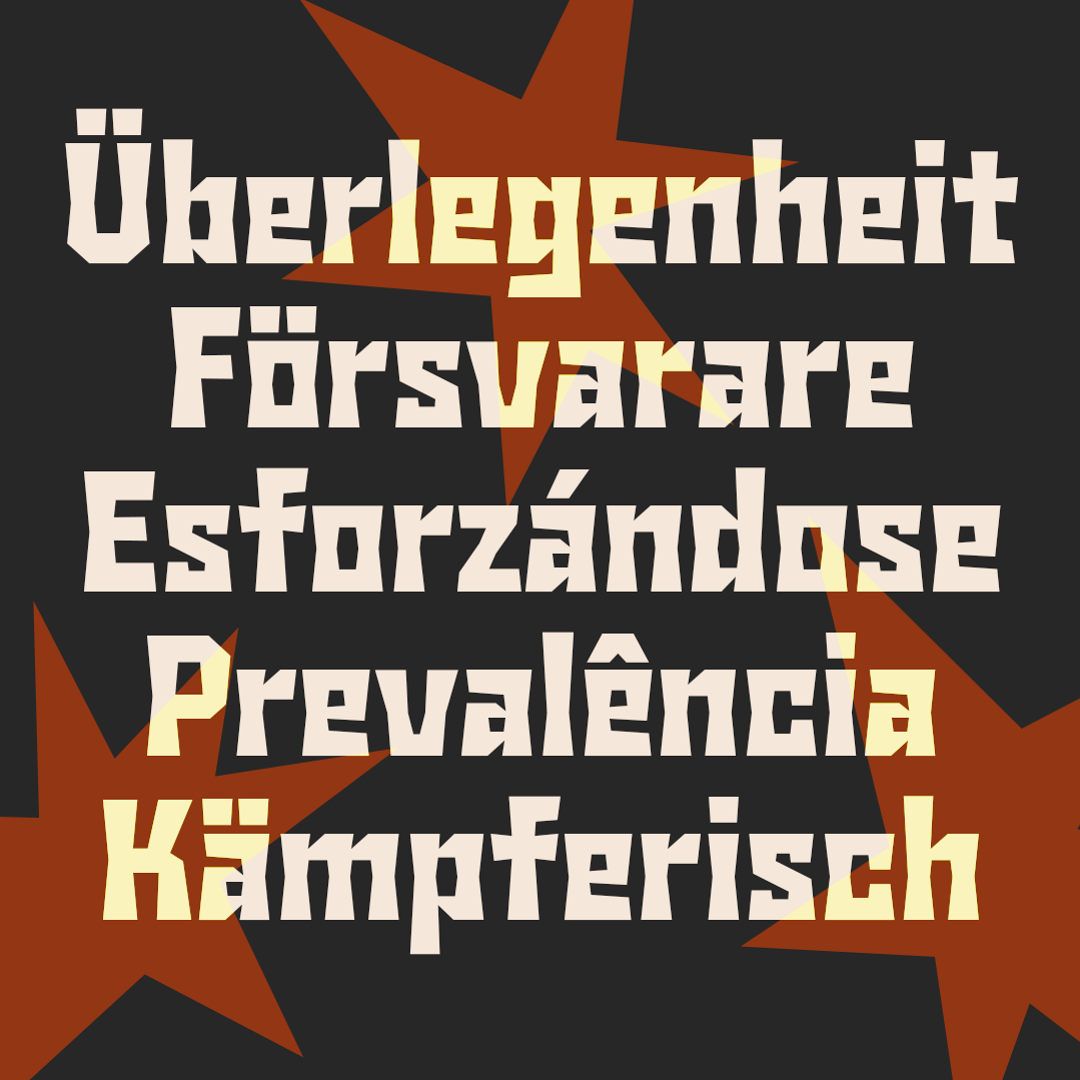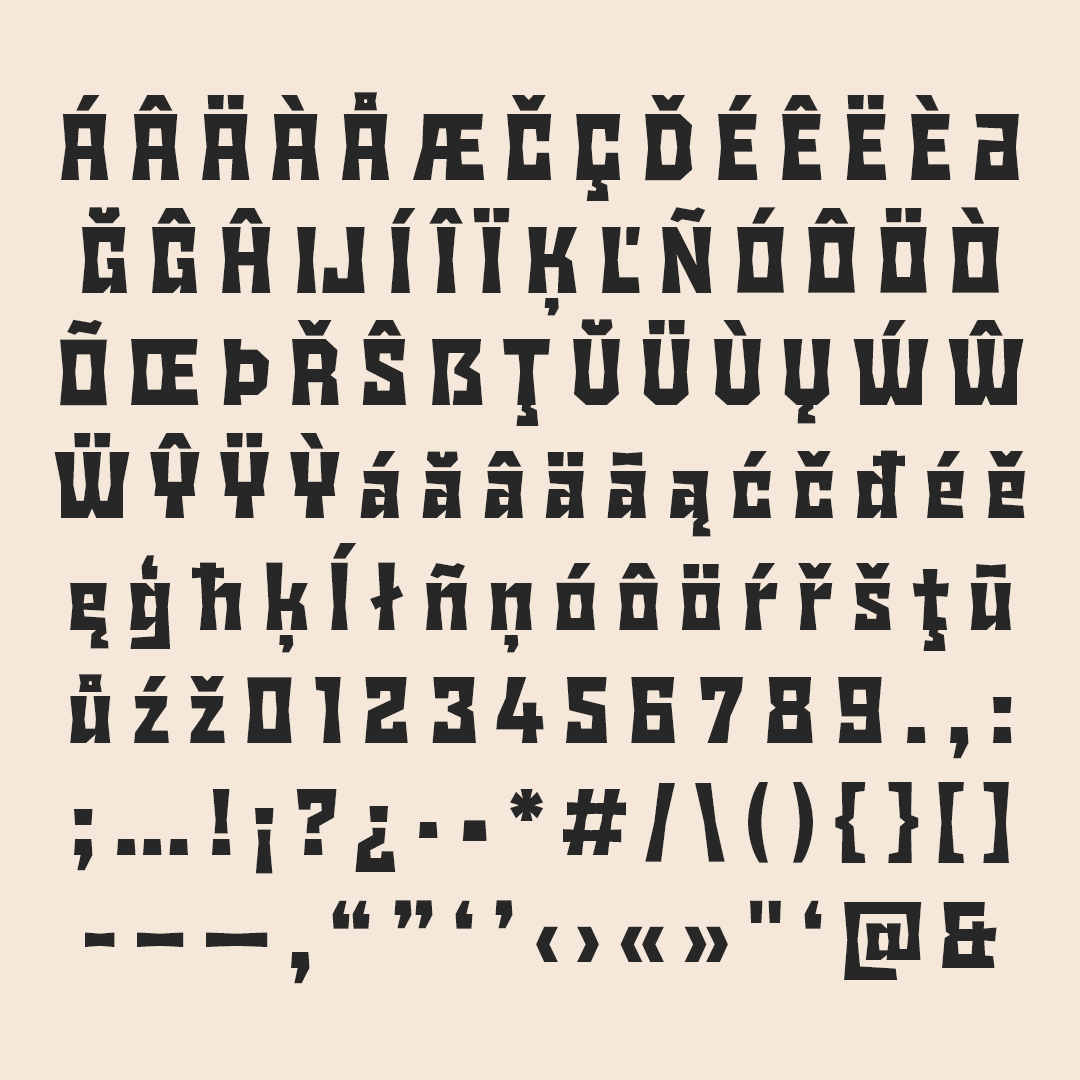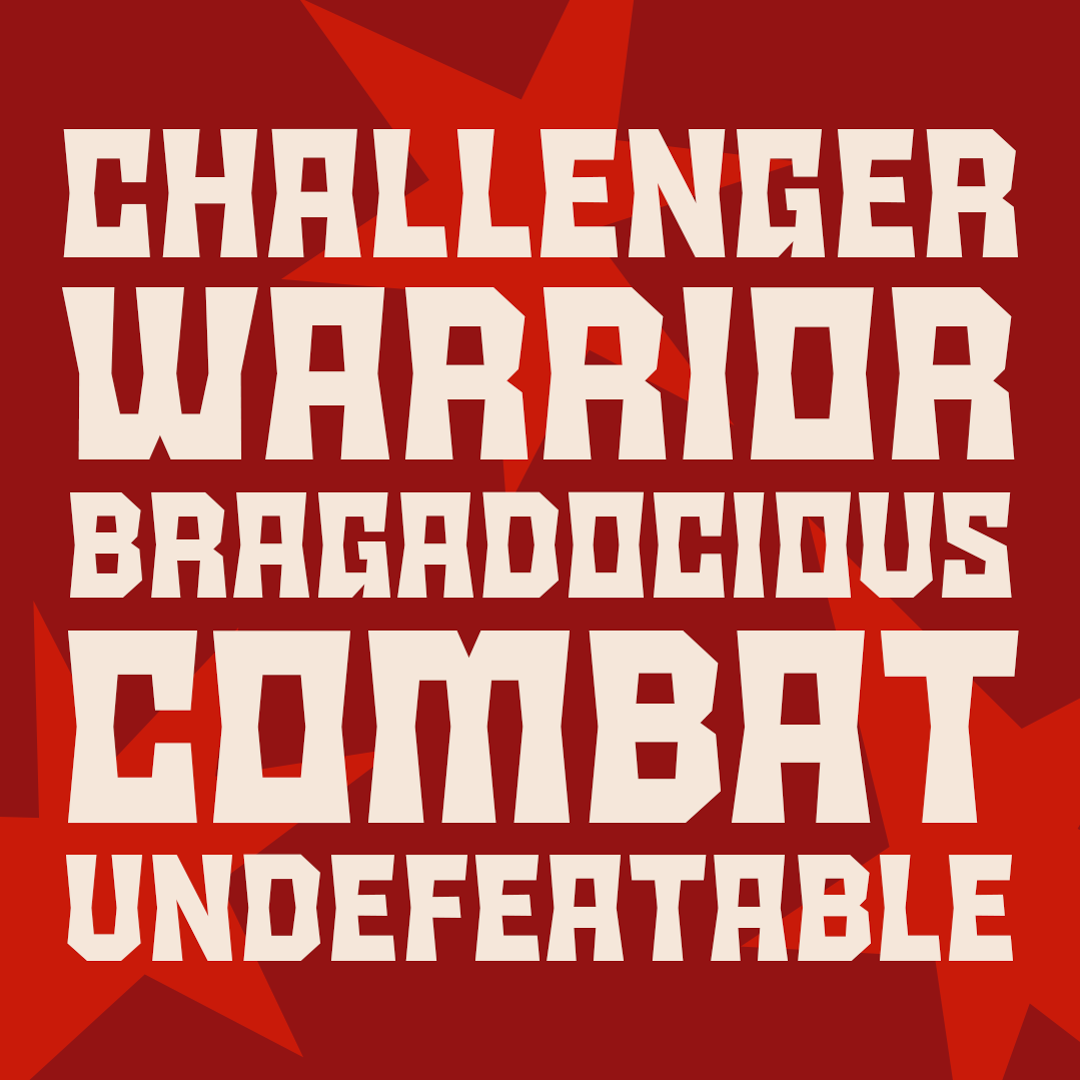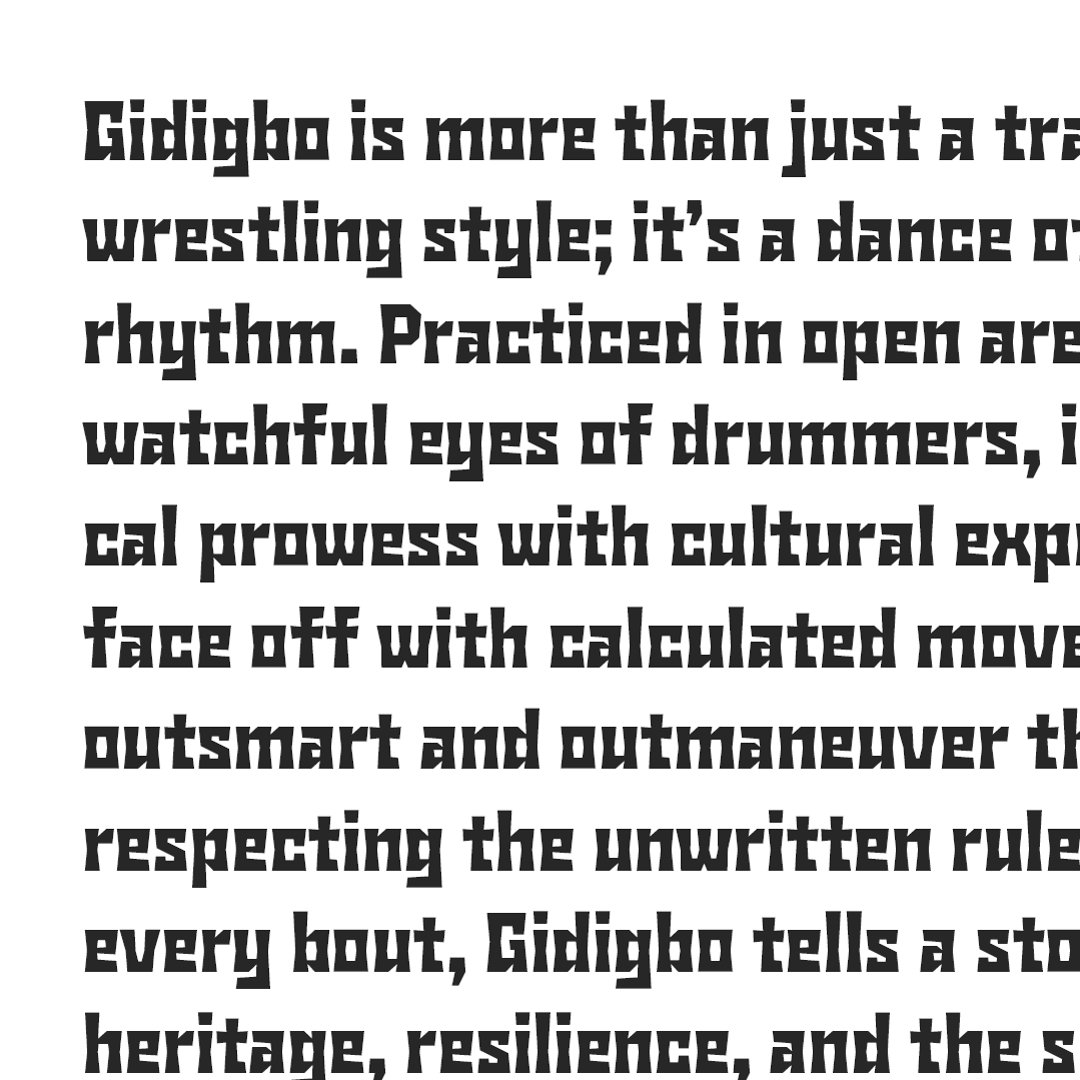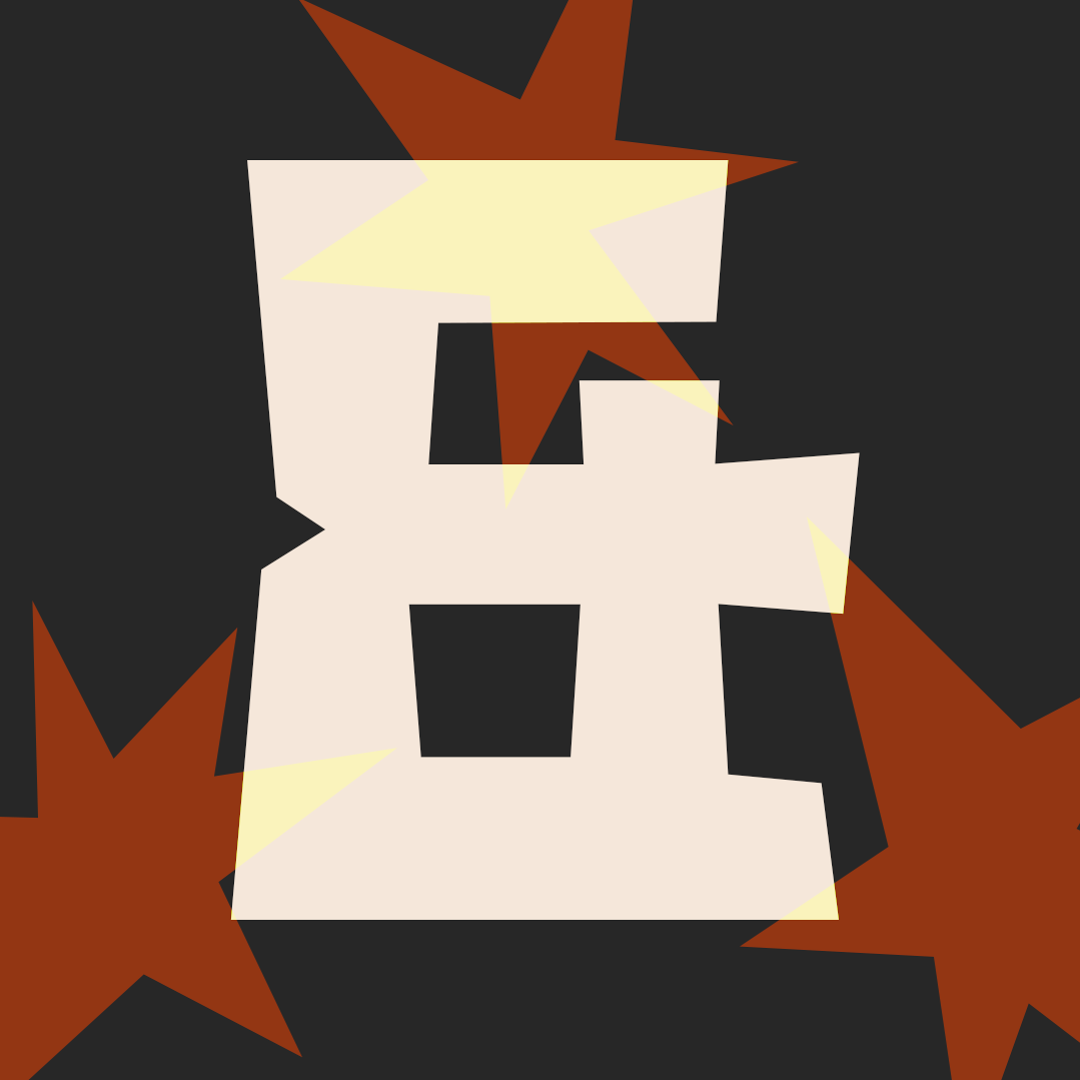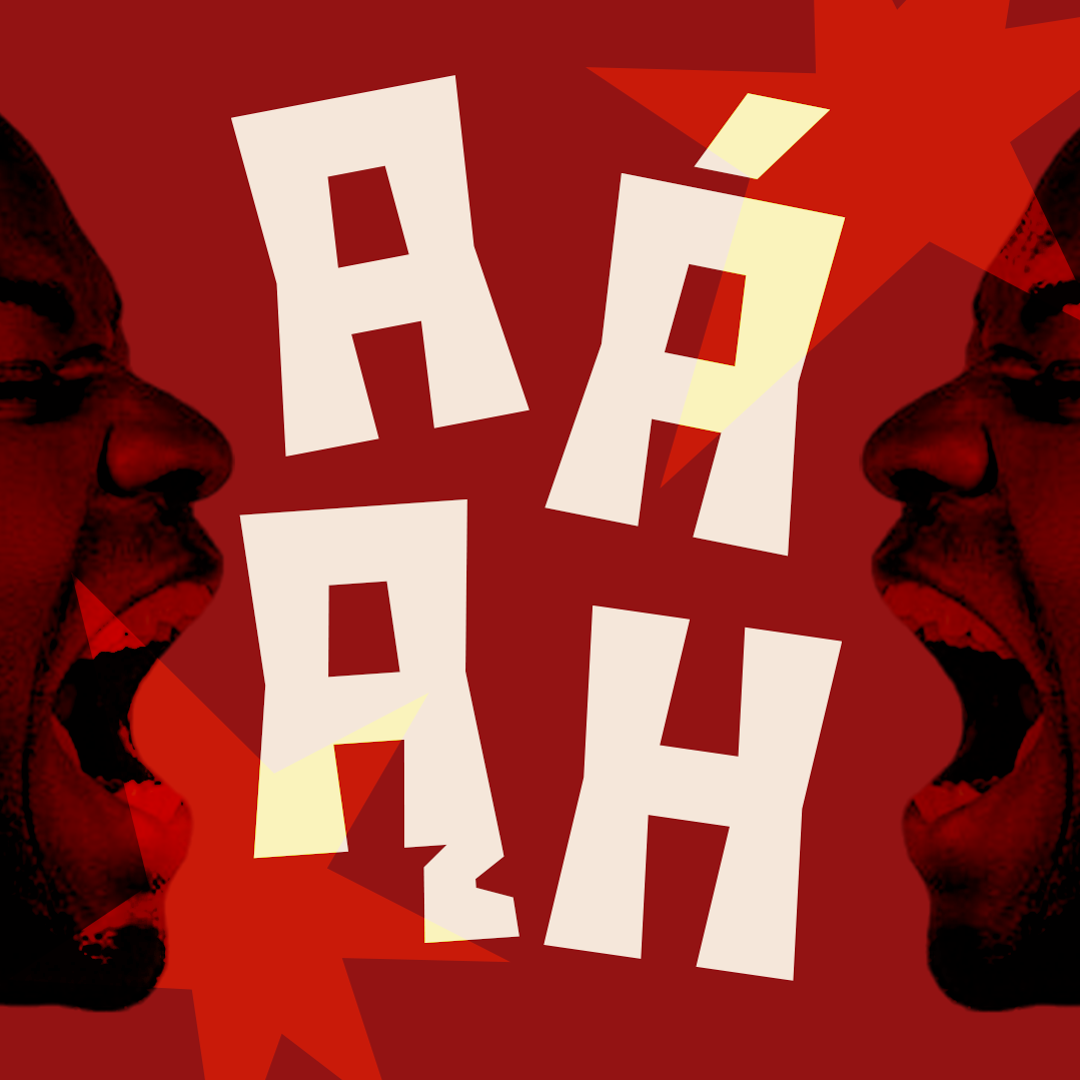
Gidigbo is an experimental display typeface by Chisaokwu Joboson inspired by the Yoruba traditional wrestling from which it takes its name. The goal was to imagine a typeface with its letters punched in on both sides, thus resulting to concave stems. This typeface celebrates African culture and serves as a statement towards the underrepresentation of Africans in the type design industry as well as the possibilities African typography has to offer in the world of type.
Chisaokwu Joboson is a Nigerian-based brand and type designer. He creates contemporary typefaces under his independent type foundry called Ụdị, meticulously crafted to accommodate various African language scripts.